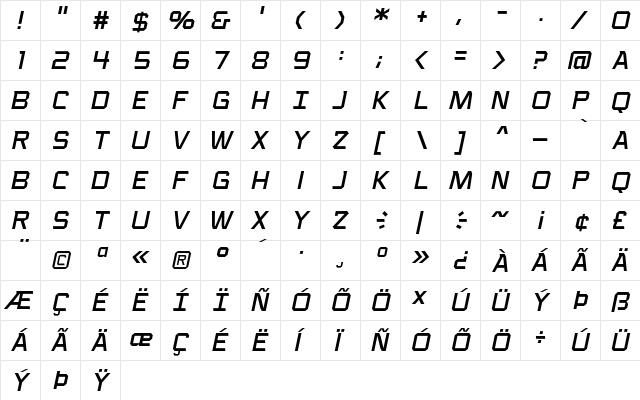
Voice Activated Caps BB Italic
| Foundry | Nate Piekos. Blambot.com |
| Designer | Nate Piekos |
Design Context for Voice Activated Caps BB Typeface
Voice Activated Caps BB is a composed and adaptable typeface that performs quietly and consistently across a wide range of design contexts. Its italic angle brings a sense of urgency and motion to the letterforms.
Pro Tip: Try Voice Activated Caps BB for annotation and caption copy alongside an upright companion — the contrast in angle creates a dynamic but ordered typographic system.